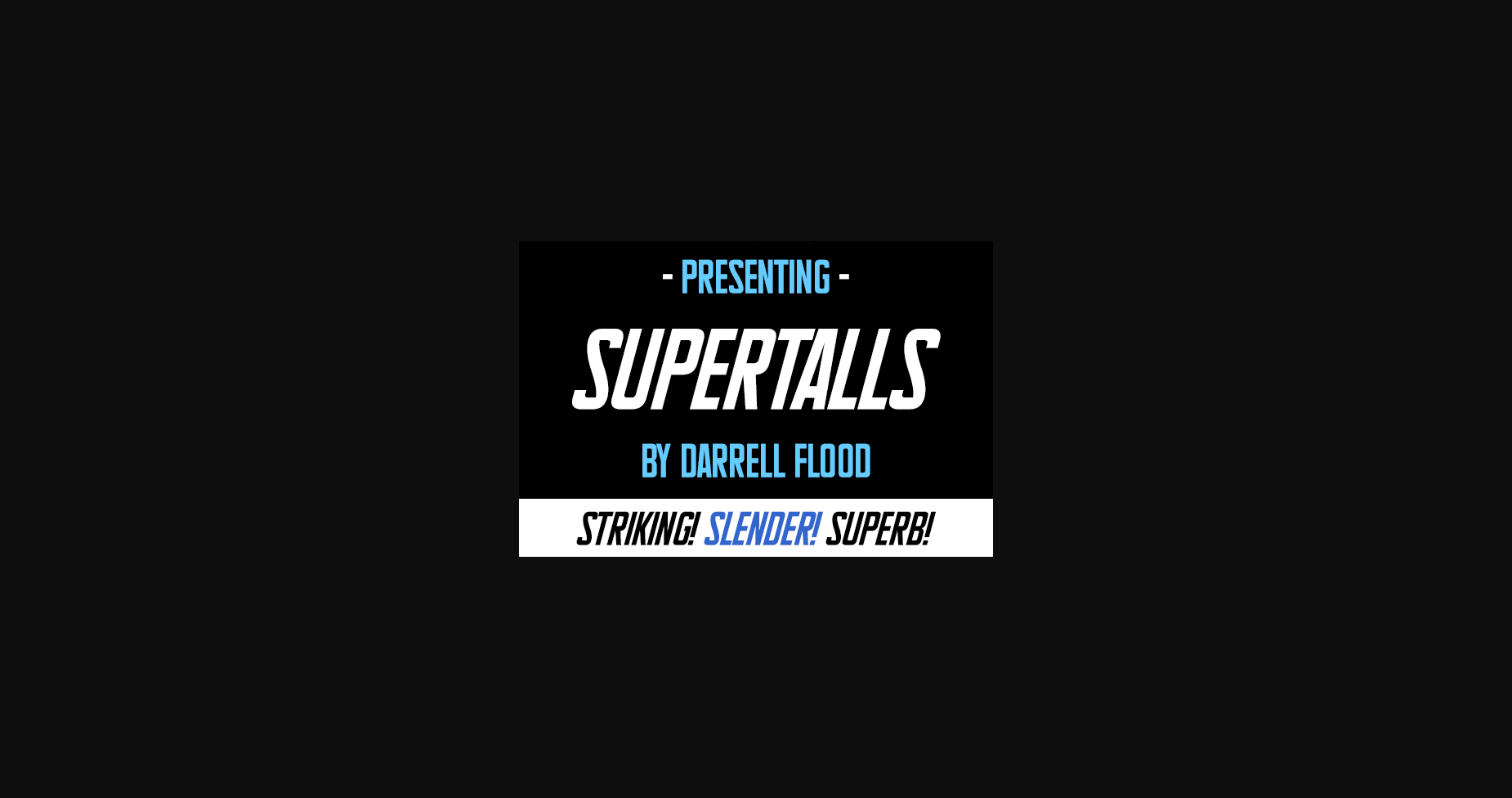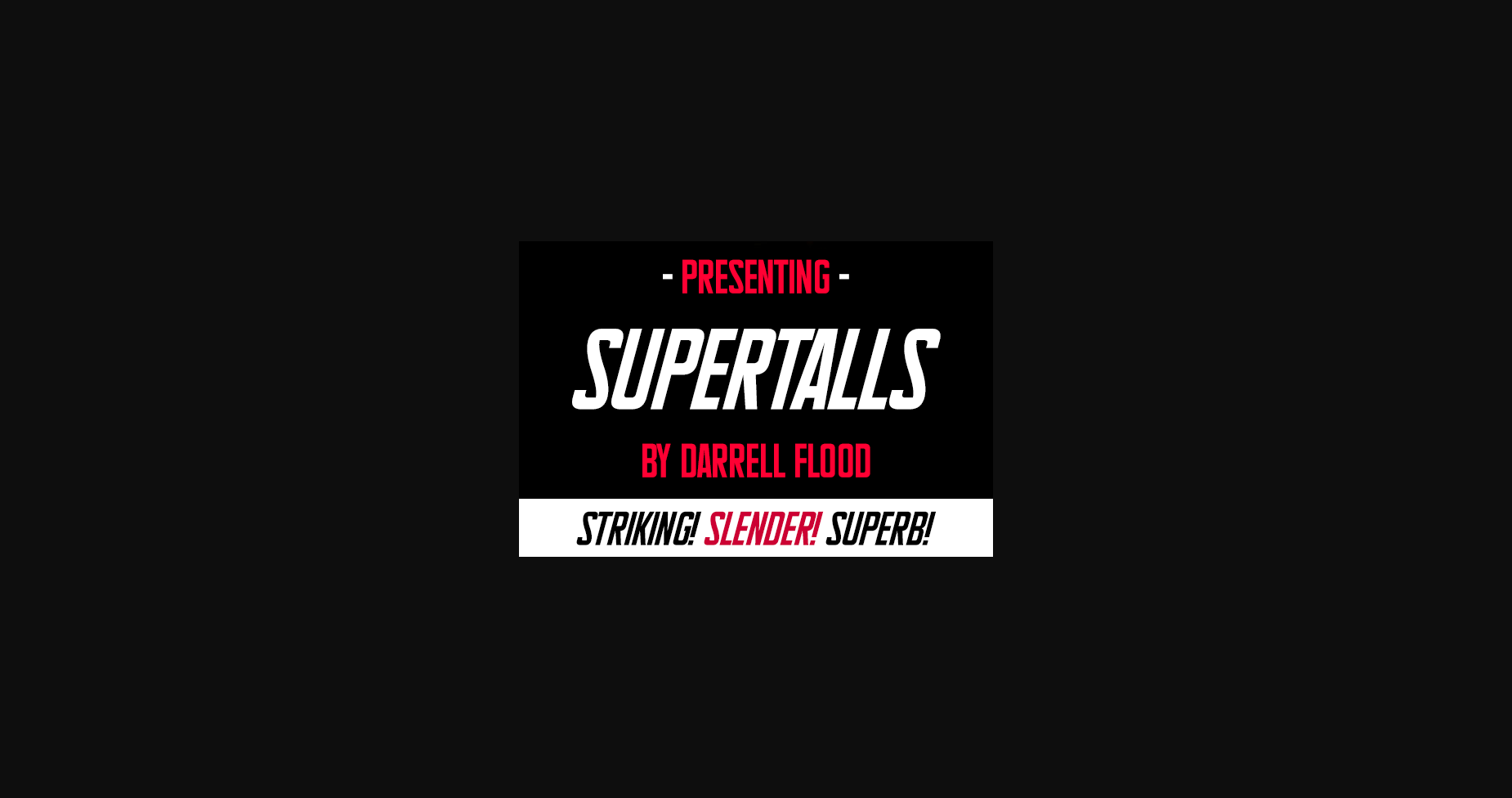
About Supertalls Font
Supertalls is striking sans-serif font in a tall, slender style, perfect for titles of movies, books, and magazines, and flexible enough to be used for pretty much any purpose. Add it to your fonts library, and it will become your favorite in no time!